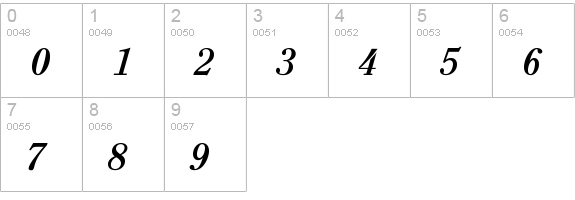
ClearfaceEF-BoldItalic Font Details
ClearfaceEF-BoldItalic is a stylish and versatile font that exudes elegance and sophistication. Its bold and italic style adds a touch of flair to any design project, making it perfect for headings, logos, and other prominent text elements. The clarity and readability of ClearfaceEF-BoldItalic make it a great choice for both print and digital applications. Best of all, ClearfaceEF-BoldItalic is available for free download at FontsMarket.com. This means that you can easily access this high-quality font and use it in your projects without any cost. Whether you're a professional designer or a hobbyist, ClearfaceEF-BoldItalic provides a valuable resource for enhancing your creations with a touch of style and professionalism. Download ClearfaceEF-BoldItalic today and elevate your designs with this exceptional font.